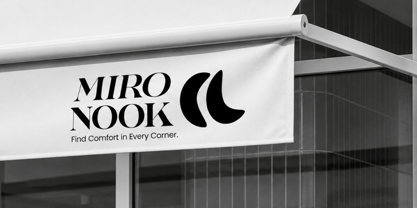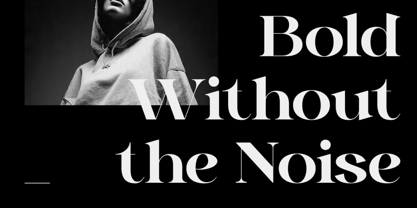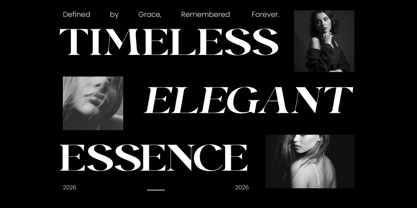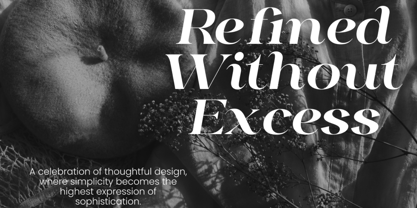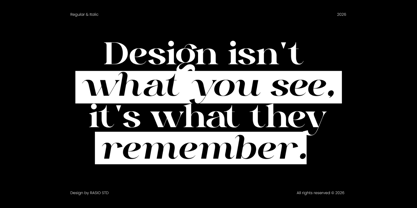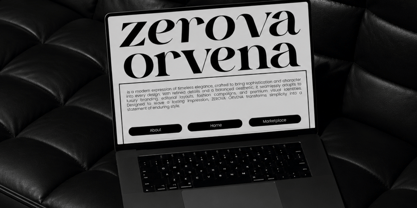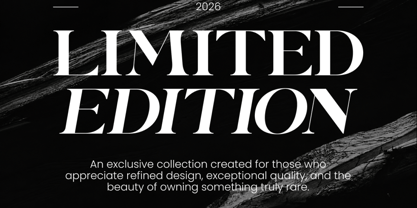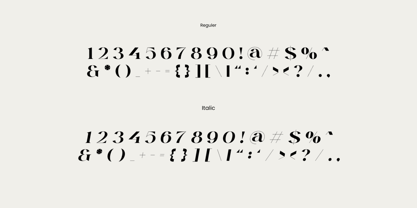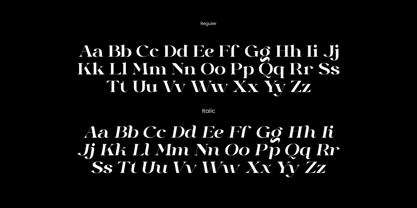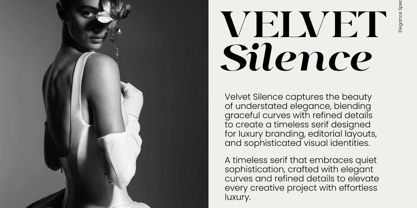
Maronier
by Rasio Studio
The Maronier Font Family was designed by Fajar Indra and published by Rasio Studio. Maronier contains 2 styles and family package options. More about this family
Maronier is a sophisticated modern serif typeface that blends timeless elegance with contemporary refinement. Designed with striking high-contrast strokes, graceful curves, and precisely sculpted serifs, it creates an unmistakable luxury aesthetic while maintaining exceptional readability. The refined proportions and confident letterforms make every headline, logo, and editorial composition feel polished, premium, and effortlessly stylish.
Relevance and Use Case is perfect for for designers seeking a serif typeface that communicates elegance, prestige, and contemporary sophistication. Its refined high-contrast structure makes it ideal for luxury branding, fashion editorials, beauty campaigns, jewelry packaging, boutique logos, hotel identities, restaurant branding, premium invitations, wedding stationery, magazines, book covers, advertising, and modern visual storytelling.